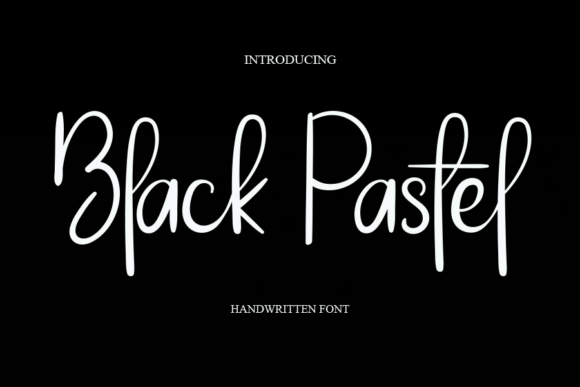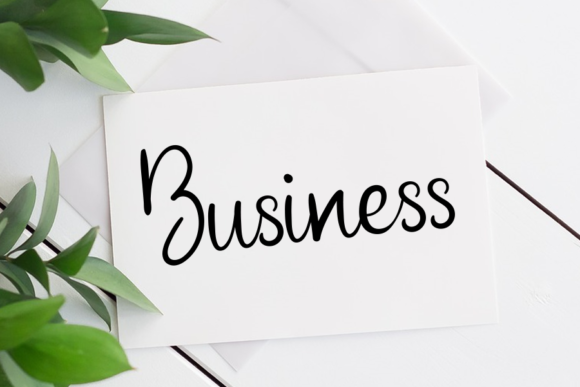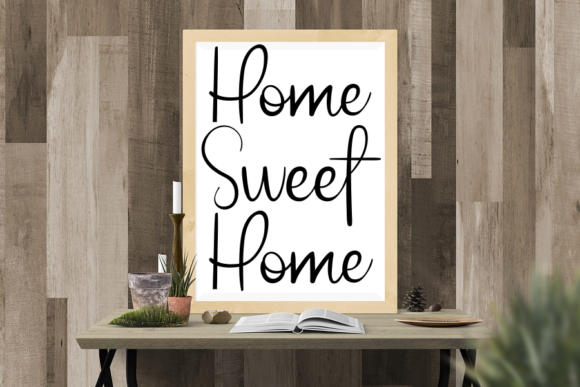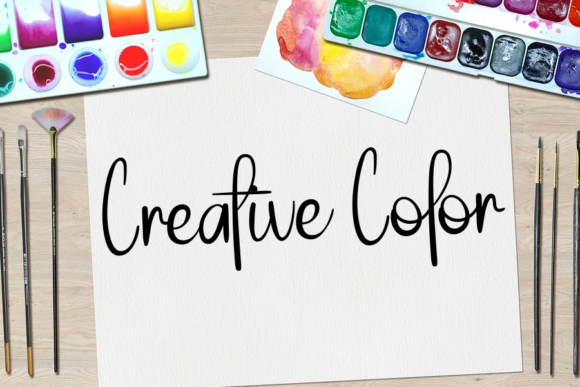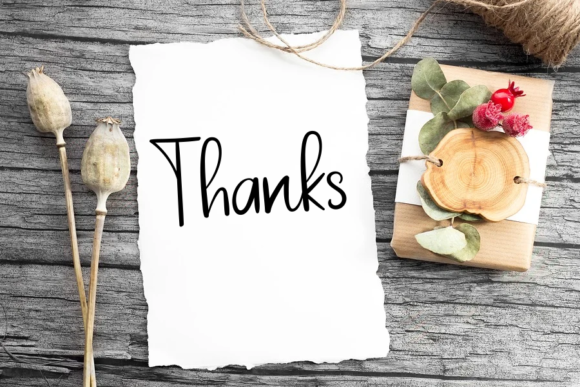
About Black Pastel Font
Black Pastel is a cute and delicate, lettered handwritten font that you can use for all chalkboard quotes or teaching material! Its authentic look will add a personal and realistic feel to your designs.